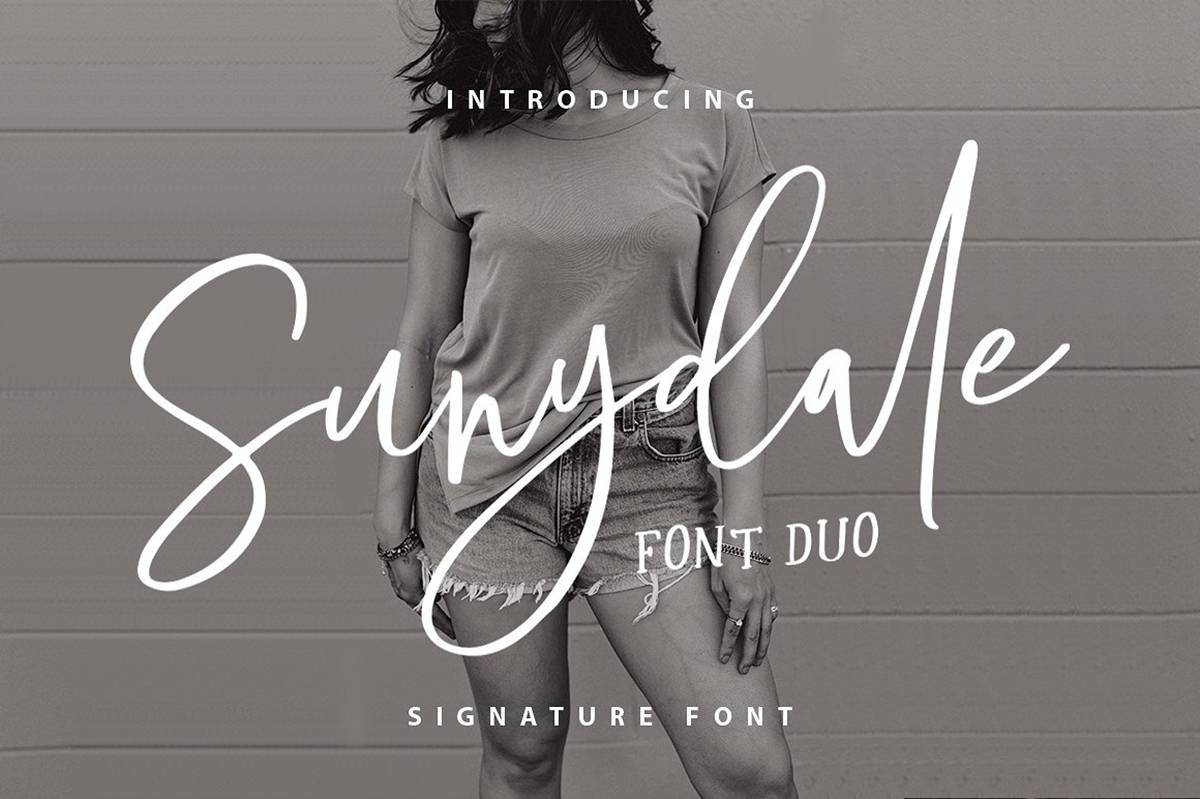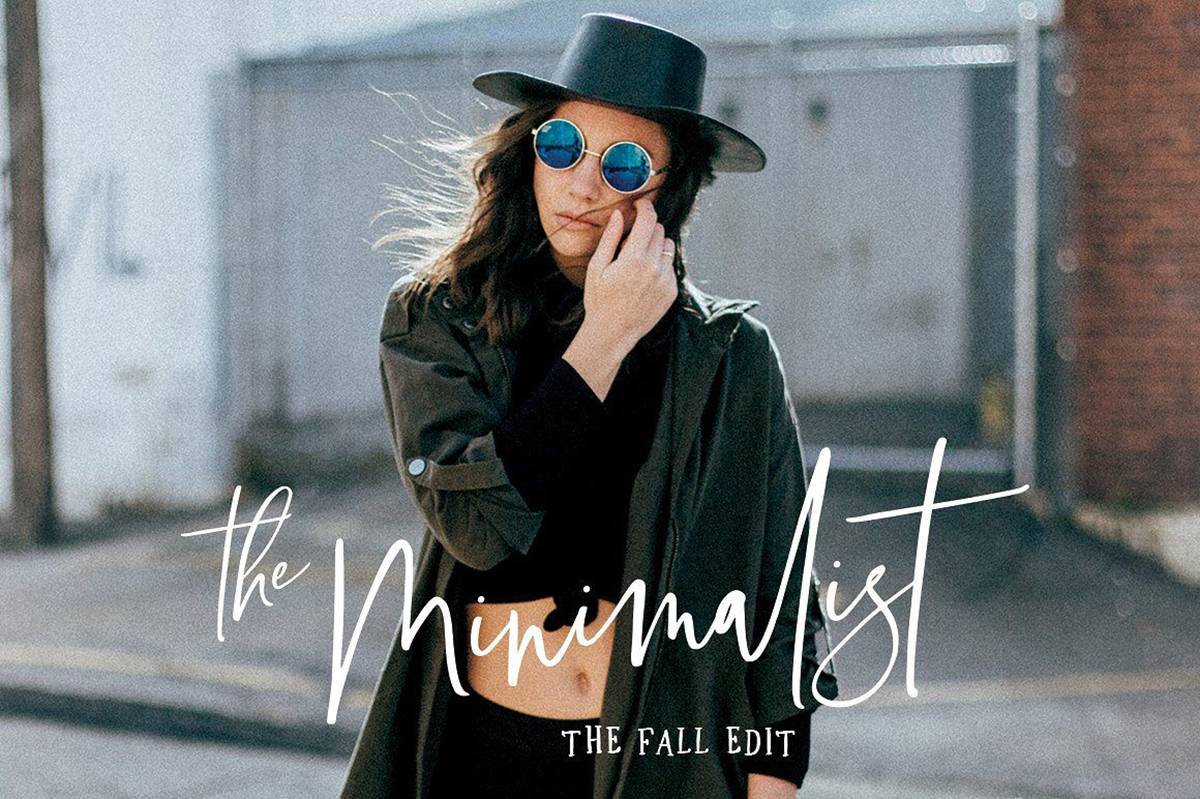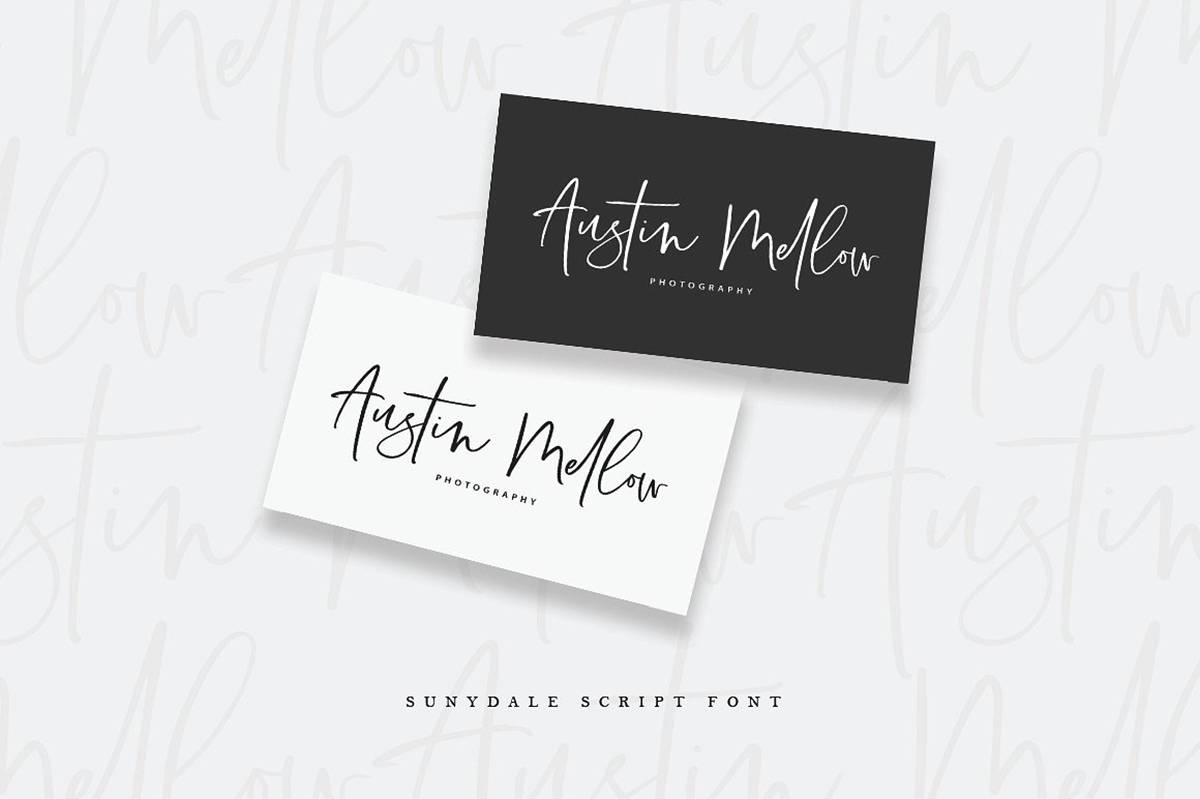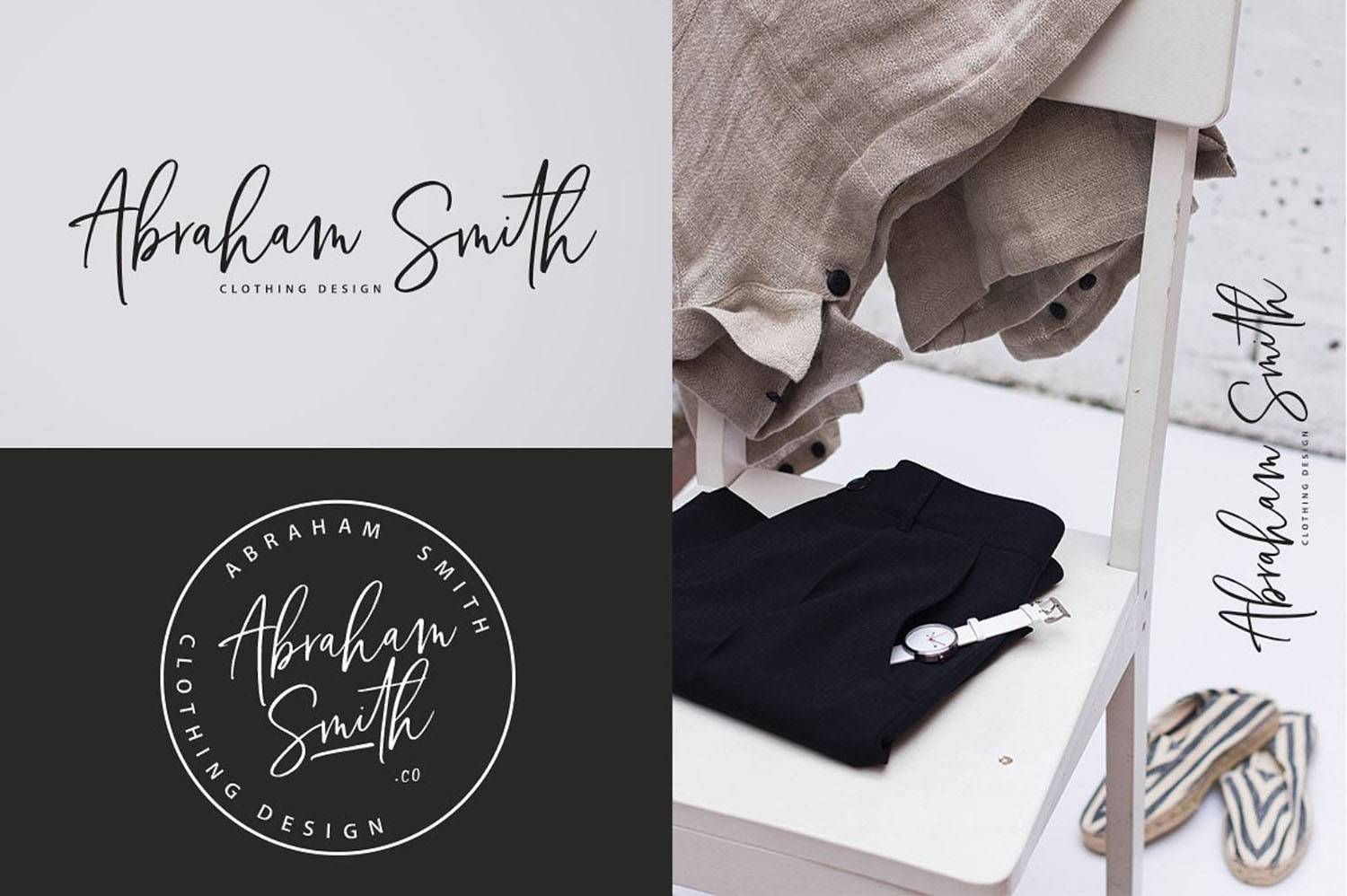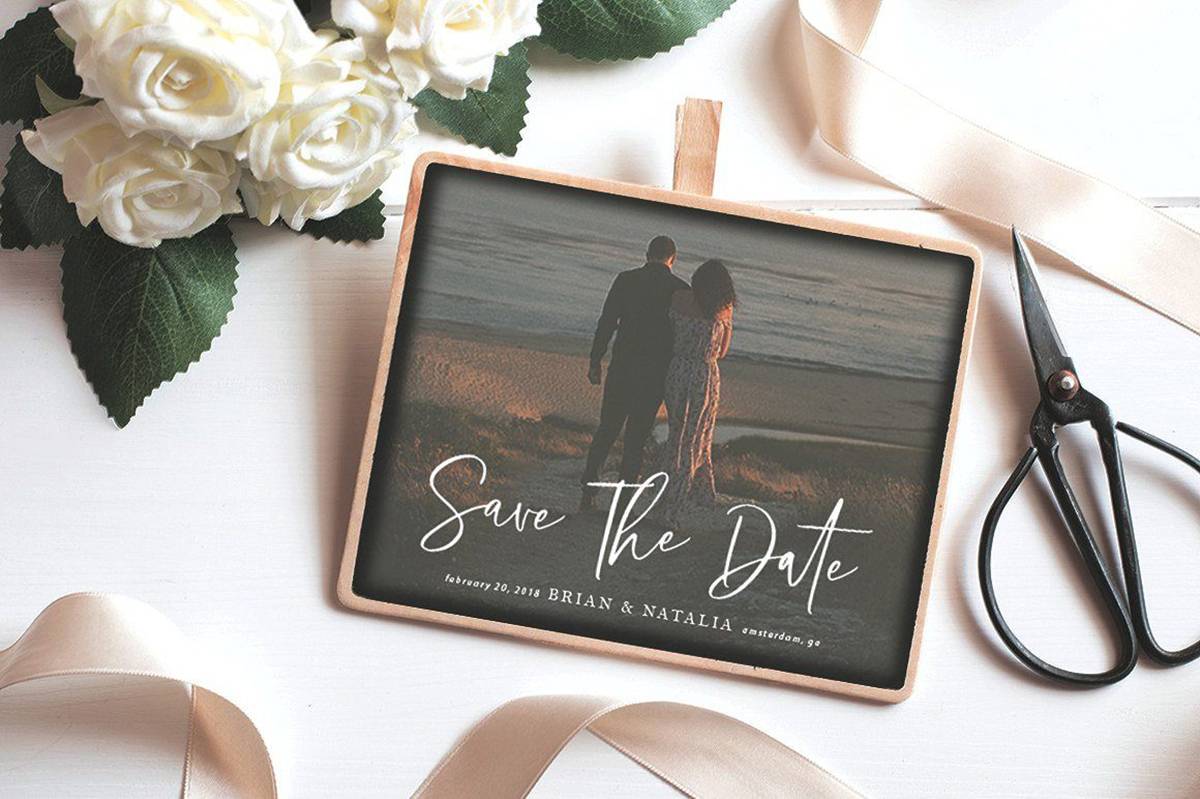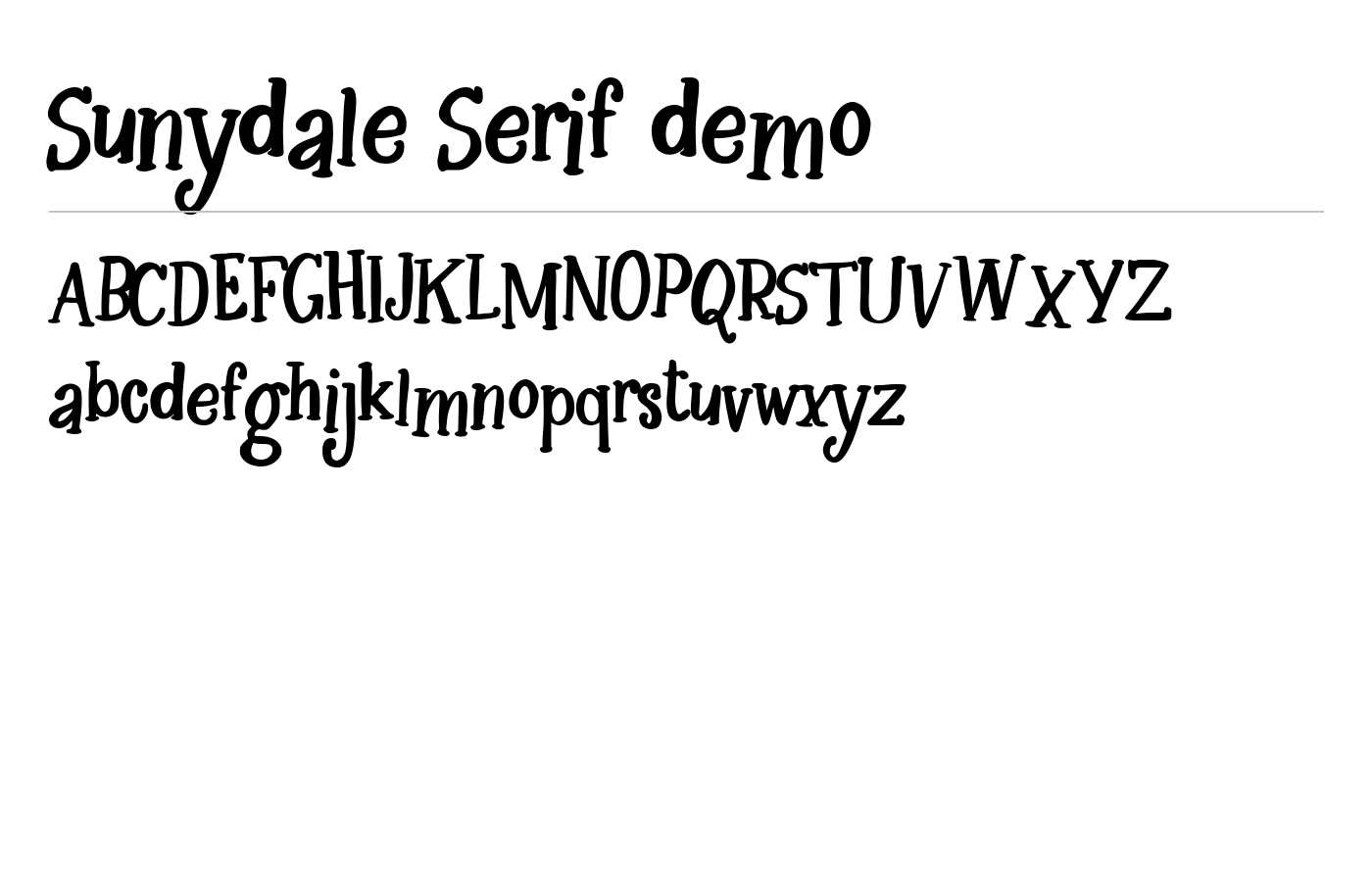
Sunydale Font Duo features a playful serif style with whimsical, uneven strokes and distinctively quirky letterforms that give it a hand-drawn, lively feel. Its irregular shapes and moderate contrast make it ideal for creative, casual branding, packaging, and editorial designs that seek a fun and approachable personality. This font adds charm and character, perfect for projects wanting a unique and friendly touch.
Sunydale Font Duo
About Sunydale Font Duo
| Font family | Sunydale Font Duo |
| Release date | 2018-03-02 |
| Designer | Faisal Tanjung |